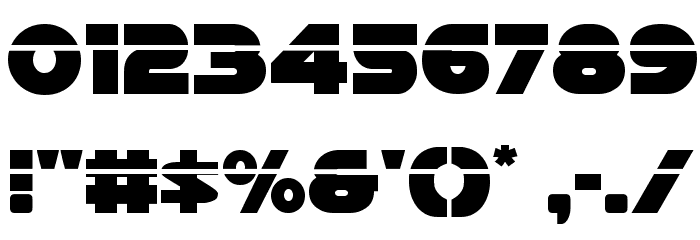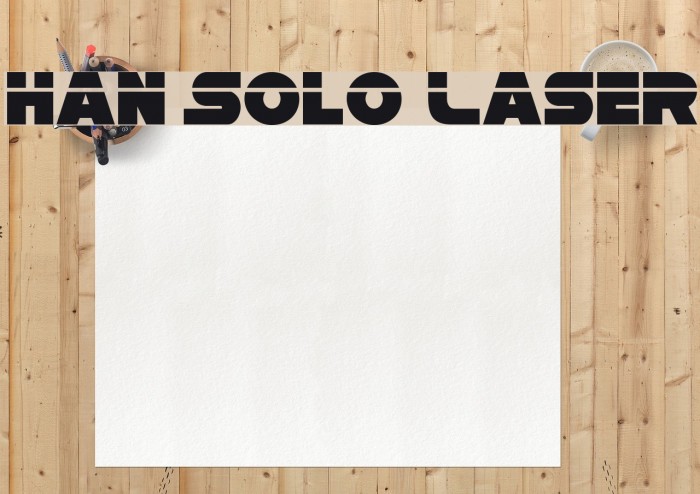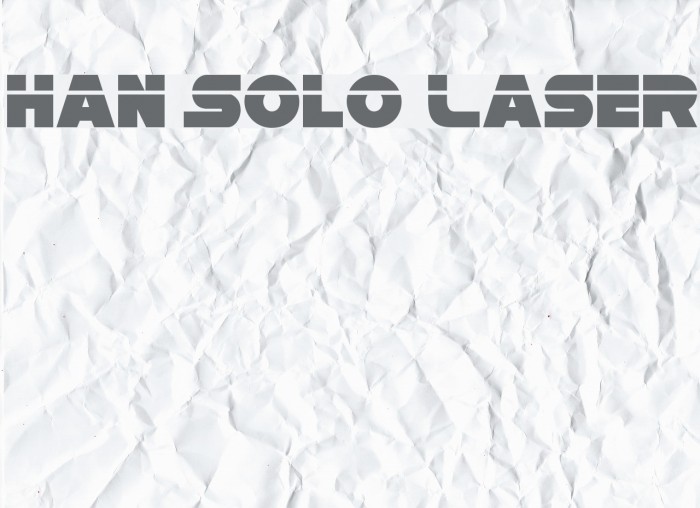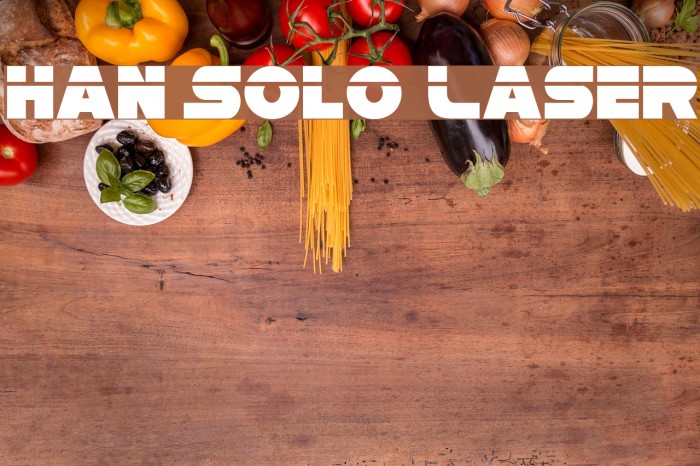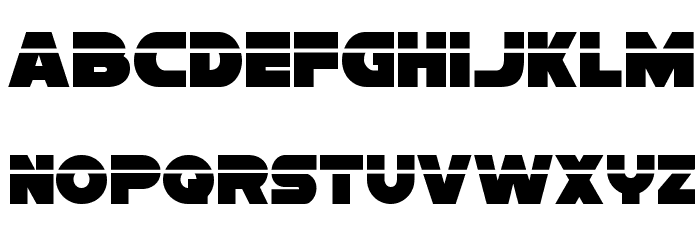
Han Solo Laser Font
Han Solo Laser Description
This font features a bold, futuristic design with a distinct geometric style. The characters are constructed with sharp angles and clean lines, creating a sense of movement and energy. The uppercase letters are particularly striking, with a blocky appearance that commands attention. The lowercase letters maintain the same boldness, ensuring consistency throughout the typeface. Numbers and special characters are equally robust, making this font versatile for various applications. Its unique design is reminiscent of science fiction themes, making it ideal for projects that require a modern and dynamic aesthetic.
A bold, geometric font with a futuristic, sci-fi style from Uncategorized fonts.
- Proposed Projects: Ideal for sci-fi themed posters, video game titles, movie logos, and tech branding.
- Overall Style: Futuristic